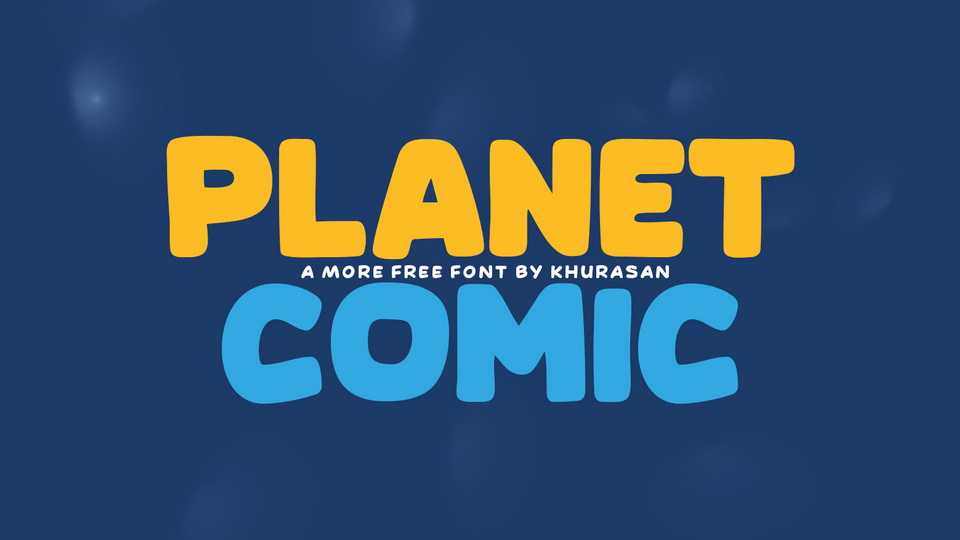
Download Planet Comic font, a bold hand lettered typeface charged with a cheerful, natural vibe. Add a playful and quirky touch to your designs with Planet Comic font.